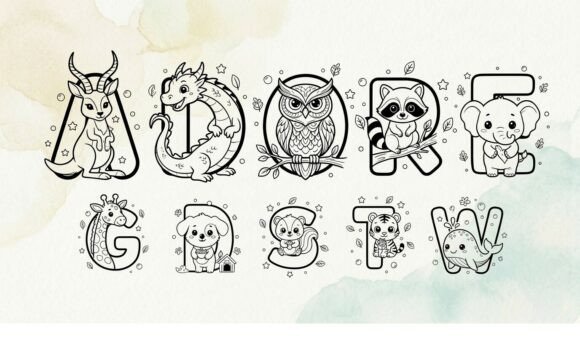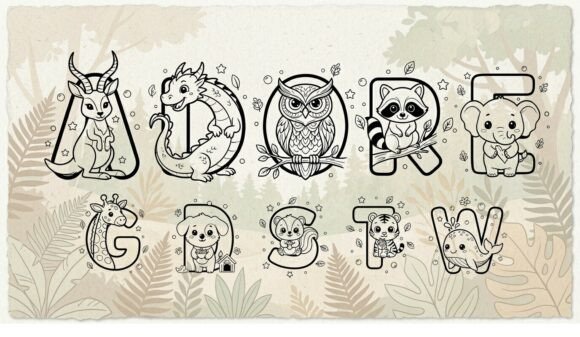
Bring the Sweetest Woodland, Zoo, and Magical Creatures to Your Next Project with Adore Animals Font!
Are you looking for a unique and adorable font to add a touch of whimsy to your next project? Look no further than the Adore Animals font! This incredibly cute, outline-style decorative display font is perfect for teachers, parents, and kids’ crafters who want to bring the sweetest woodland, zoo, and magical creatures to their designs.
What Makes Adore Animals Font So Special?
The Adore Animals font is an absolute dream for anyone who loves animals, crafting, and design. Every single bold letterform is uniquely designed with a kawaii animal interacting with it—from a wrapping dragon and a perching owl, to a playful raccoon and a splashing whale. The clean outline design makes it look like a beautiful, hand-drawn doodle, perfect for creating custom coloring pages, educational alphabet posters, nursery wall art, playful children’s apparel, cute baby shower invitations, and personalized kids’ crafts.
The Adore Animals font is an excellent choice for designers and crafters who want to create unique and engaging projects for kids. The font’s outline design makes it easy to use for coloring pages, and the adorable animal illustrations will surely delight children. Whether you’re creating educational materials, nursery decor, or kids’ apparel, this font is sure to bring a touch of magic to your designs.
Ideas for Using Adore Animals Font
Here are some ideas for using the Adore Animals font in your next project:
• Create custom coloring pages for kids, featuring their favorite animals and letters.
• Design educational alphabet posters that teach kids about the alphabet and animals.
• Make nursery wall art that features adorable animals and sweet quotes.
• Create playful children’s apparel, such as t-shirts and hoodies, with cute animal designs.
• Design cute baby shower invitations that feature adorable animals and personalized messages.
• Make personalized kids’ crafts, such as customized picture frames and greeting cards.
Why Choose Adore Animals Font?
There are many reasons why you should choose the Adore Animals font for your next project. Here are a few:
• Unique and Adorable Designs: Every letterform is uniquely designed with a kawaii animal interacting with it, making it perfect for kids’ projects.
• Clean Outline Design: The font’s clean outline design makes it easy to use for coloring pages and other crafts.
• Perfect for Educational Projects: The font is perfect for educational projects, such as alphabet posters and coloring pages.
If you’re looking for a unique and adorable font to add a touch of whimsy to your next project, look no further than the Adore Animals font. With its clean outline design and adorable animal illustrations, this font is perfect for teachers, parents, and kids’ crafters who want to bring the sweetest woodland, zoo, and magical creatures to their designs. So why wait? Download the Adore Animals font today and start creating your own unique and engaging projects!
Key Features of Adore Animals Font
• Incredibly cute, outline-style decorative display font
• Uniquely designed letterforms with kawaii animals interacting with them
• Clean outline design perfect for coloring pages and crafts
• Perfect for educational projects, such as alphabet posters and coloring pages